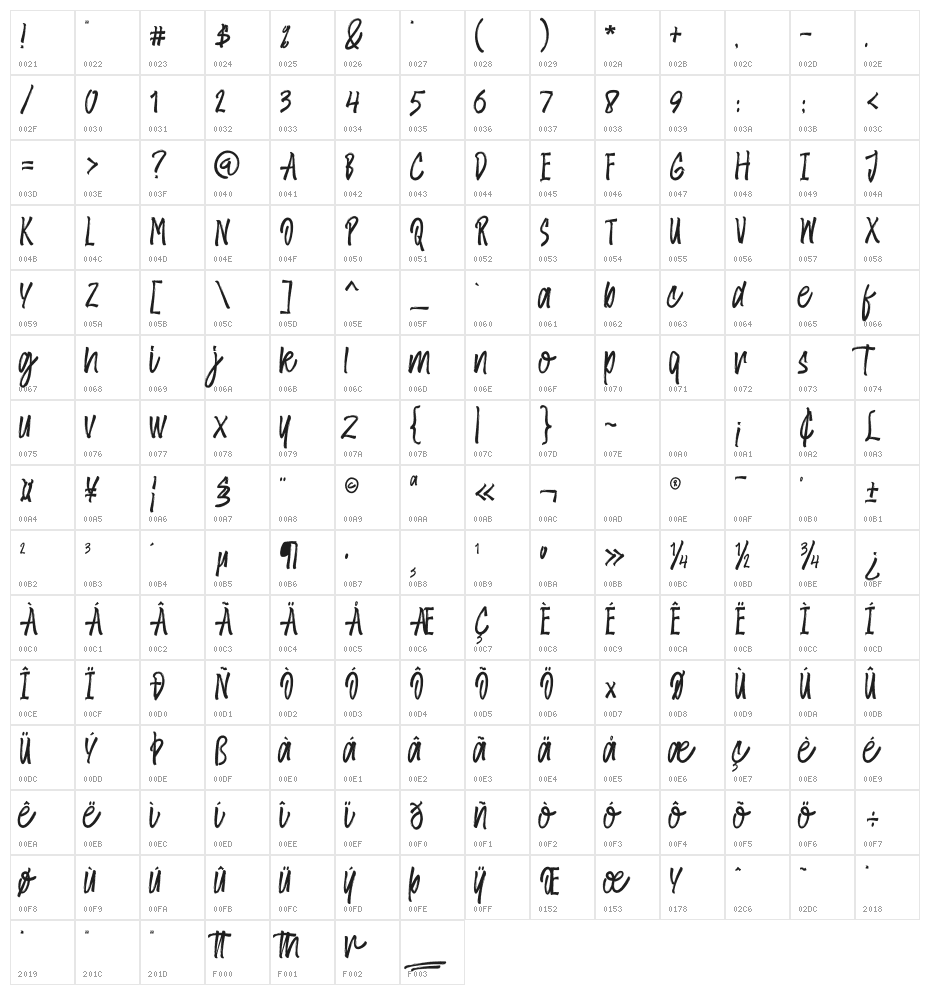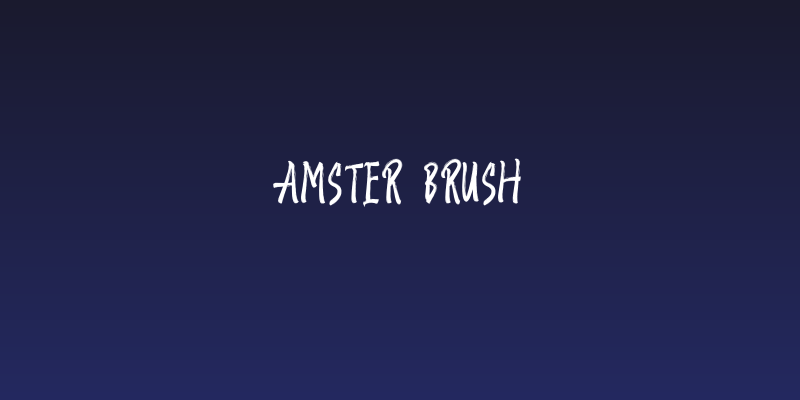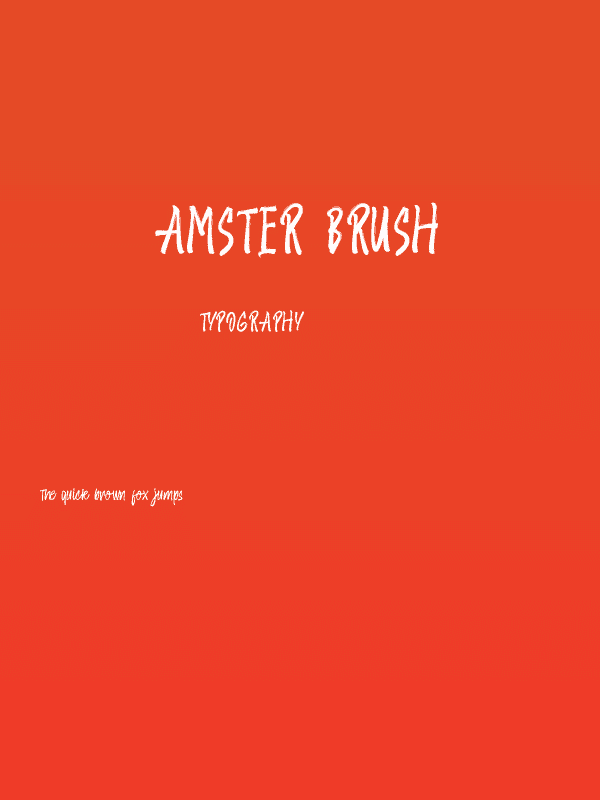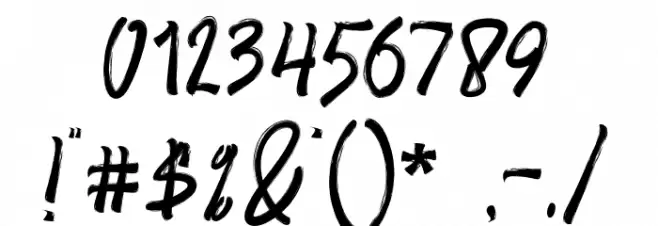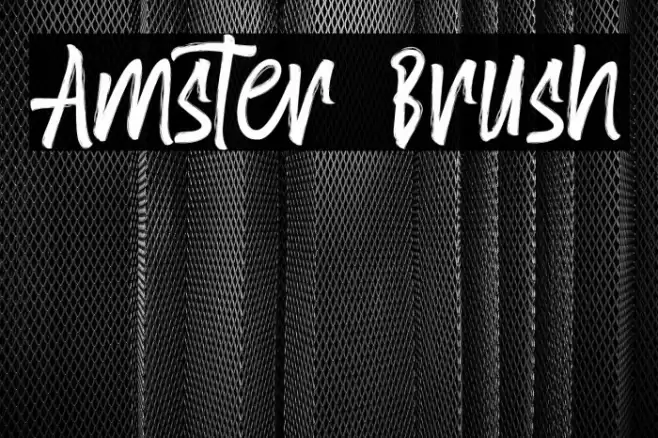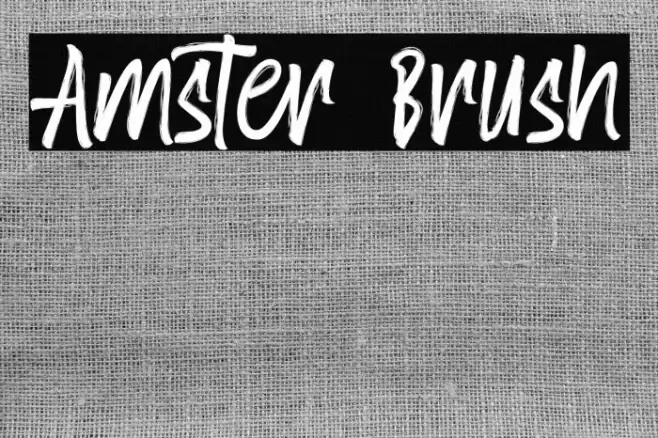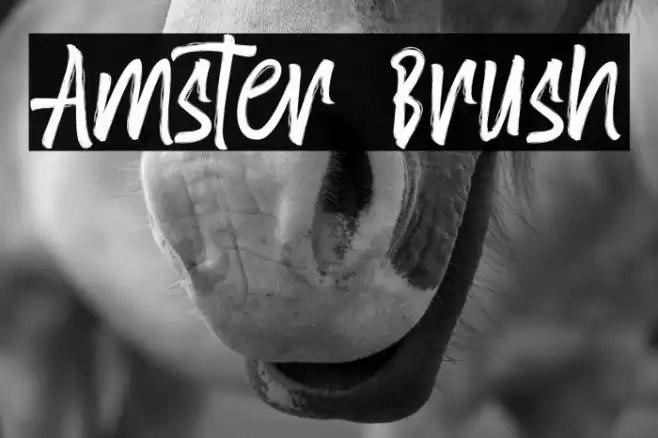
Amster Brush Font
This font features a dynamic and expressive brush style, characterized by its bold and energetic strokes. The letters have a hand-painted appearance, with varying thickness that adds a sense of movement and fluidity. The uppercase and lowercase letters maintain a consistent style, with slightly exaggerated curves and angles that enhance its artistic flair. Numbers and special characters are equally expressive, making them suitable for creative and informal designs. The overall look is modern and artistic, perfect for projects that require a personal and handcrafted touch.
| Proposed Projects | Ideal for branding, posters, invitations, and any project that benefits from a personal, artistic touch. |